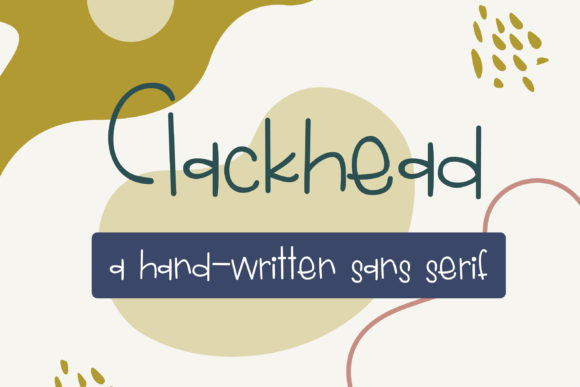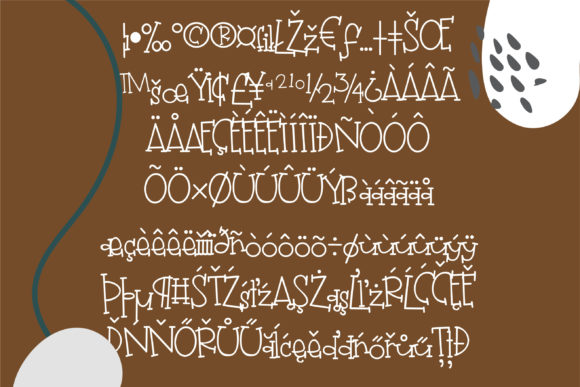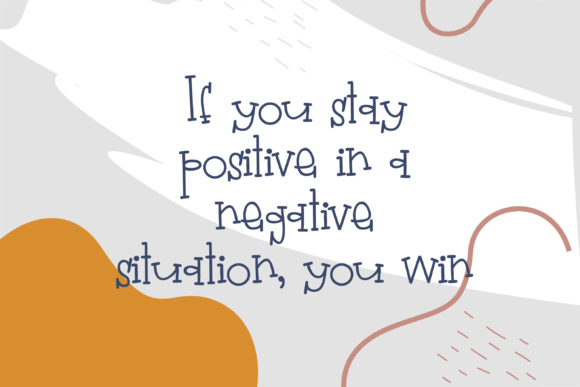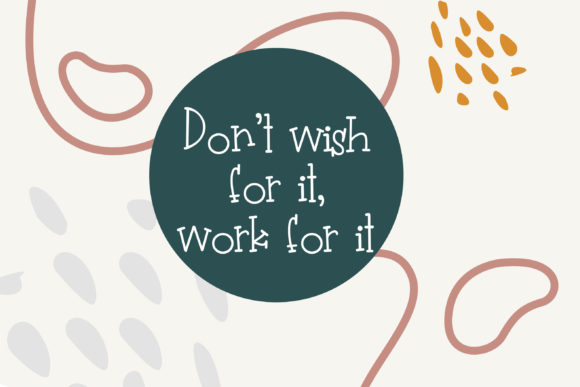
About Clackhead Font
Clackhead is a simple, relaxed and friendly handwritten font. No matter the topic, this font will be an incredible asset to your fonts’ library, as it has the potential to elevate any creation.